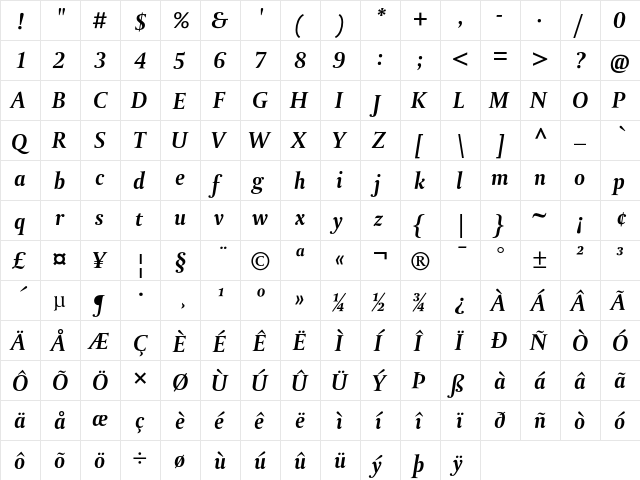
DTLParadoxT BoldItalic
Design Context for DTLParadoxT Typeface
DTLParadoxT is a composed and adaptable typeface that performs quietly and consistently across a wide range of design contexts. The dynamic lean of this cut emphasises speed and emphasis in any layout. The heavy weight commands attention and anchors typographic hierarchies.
Pro Tip: Try DTLParadoxT for annotation and caption copy alongside an upright companion — the contrast in angle creates a dynamic but ordered typographic system.